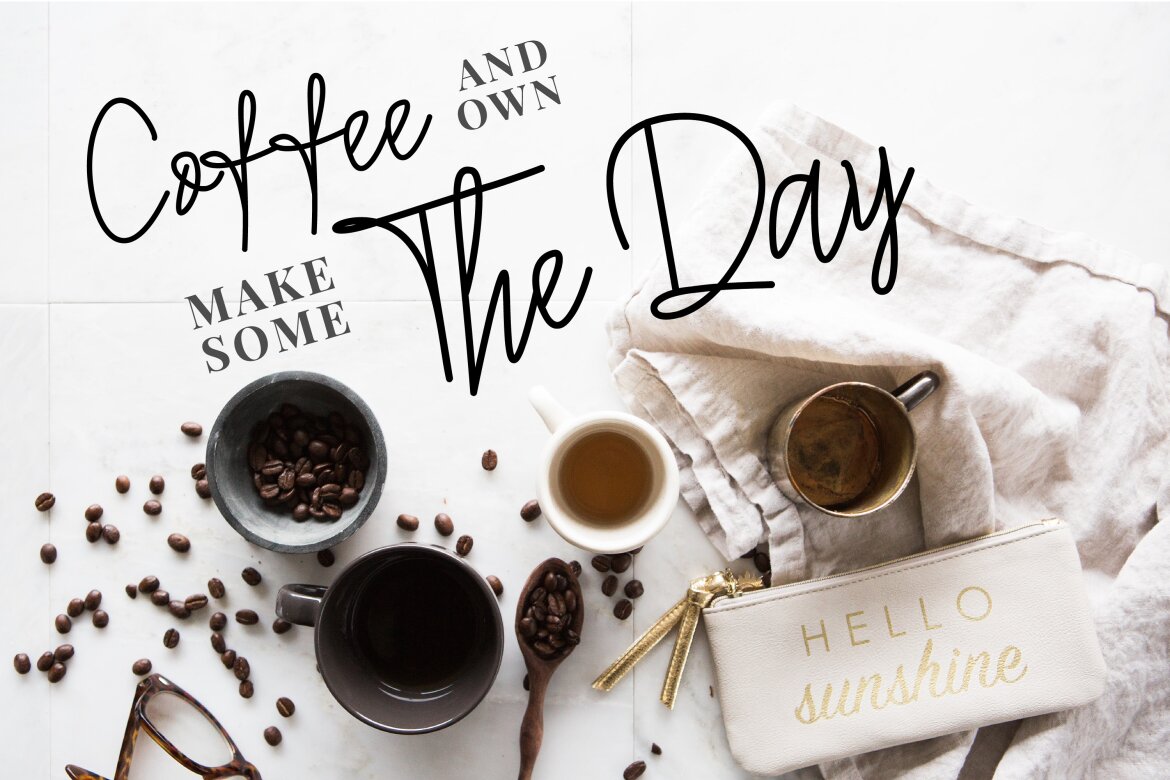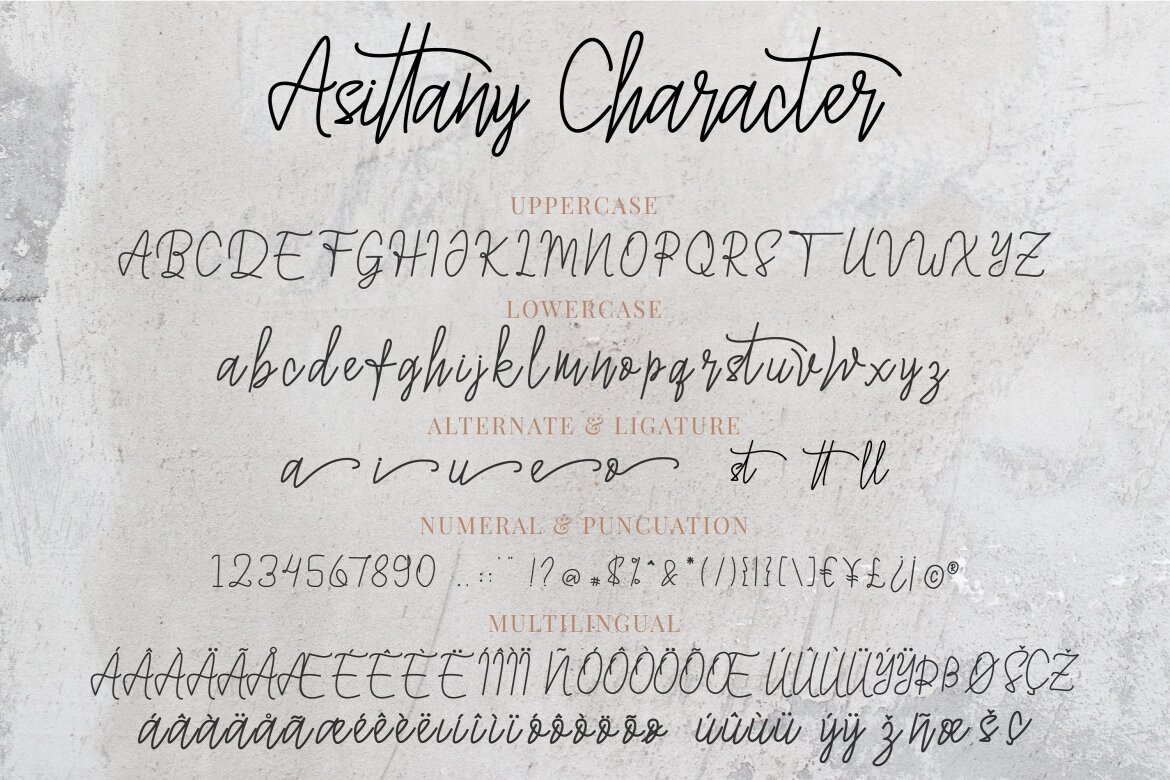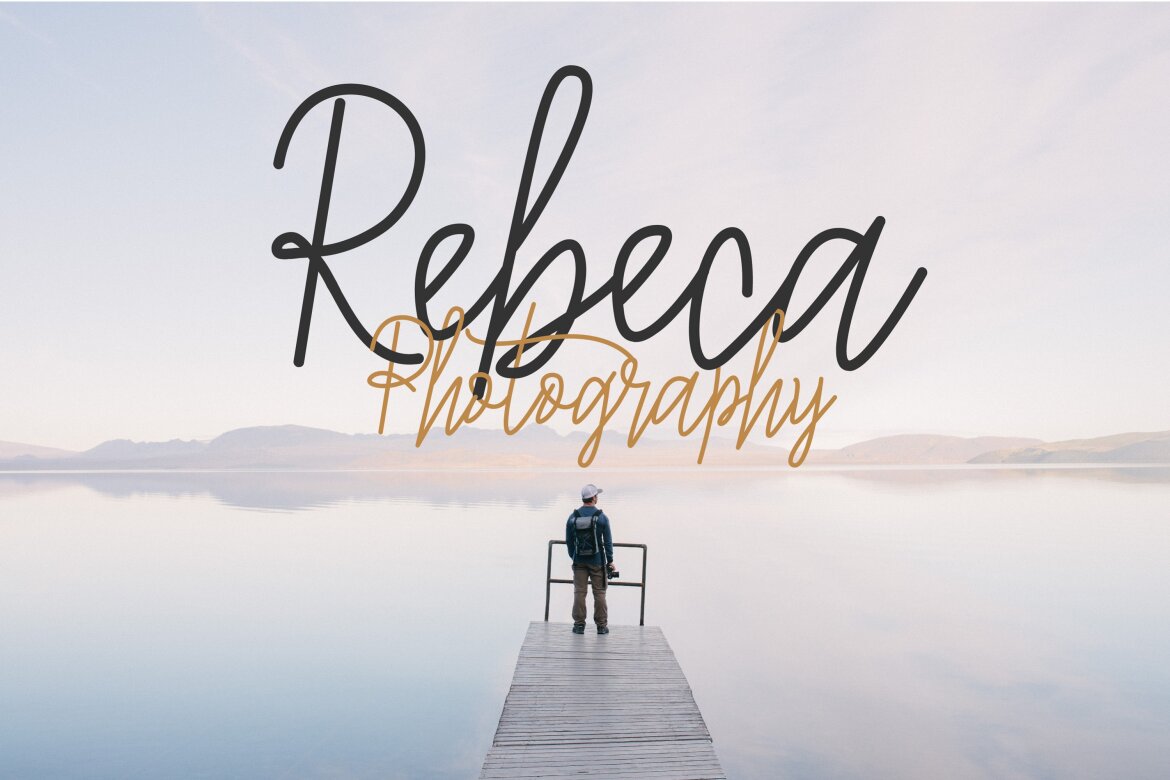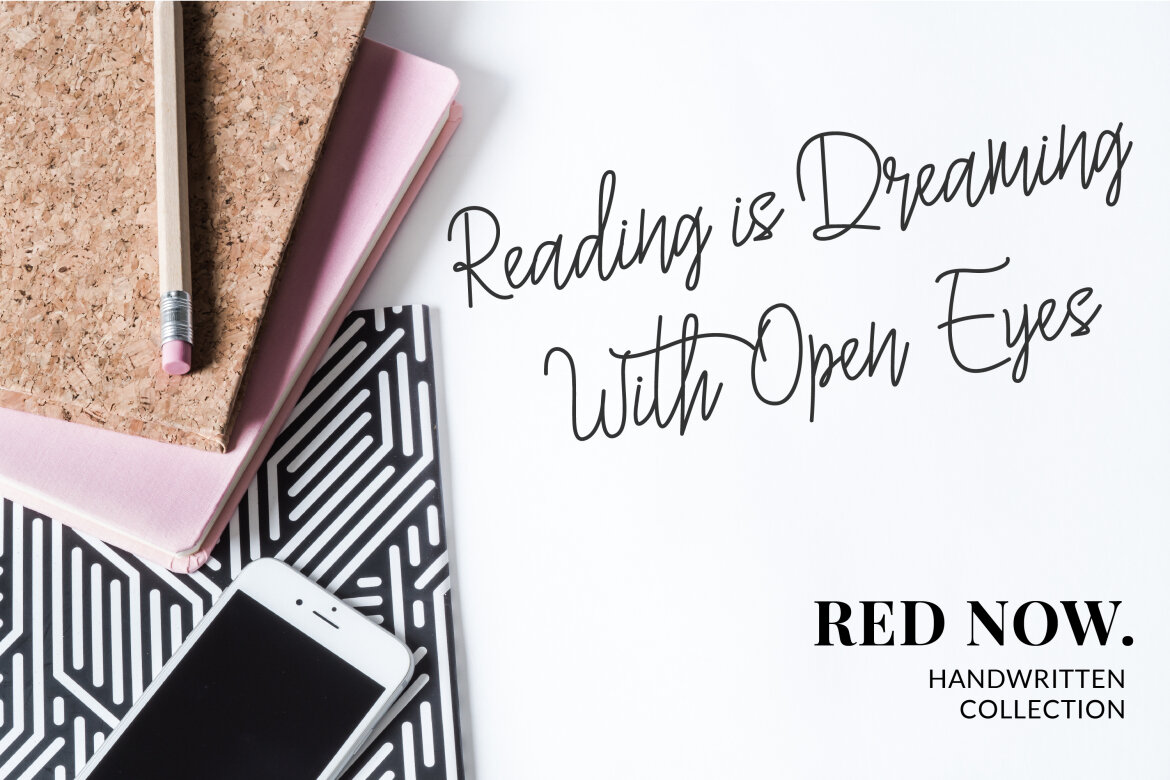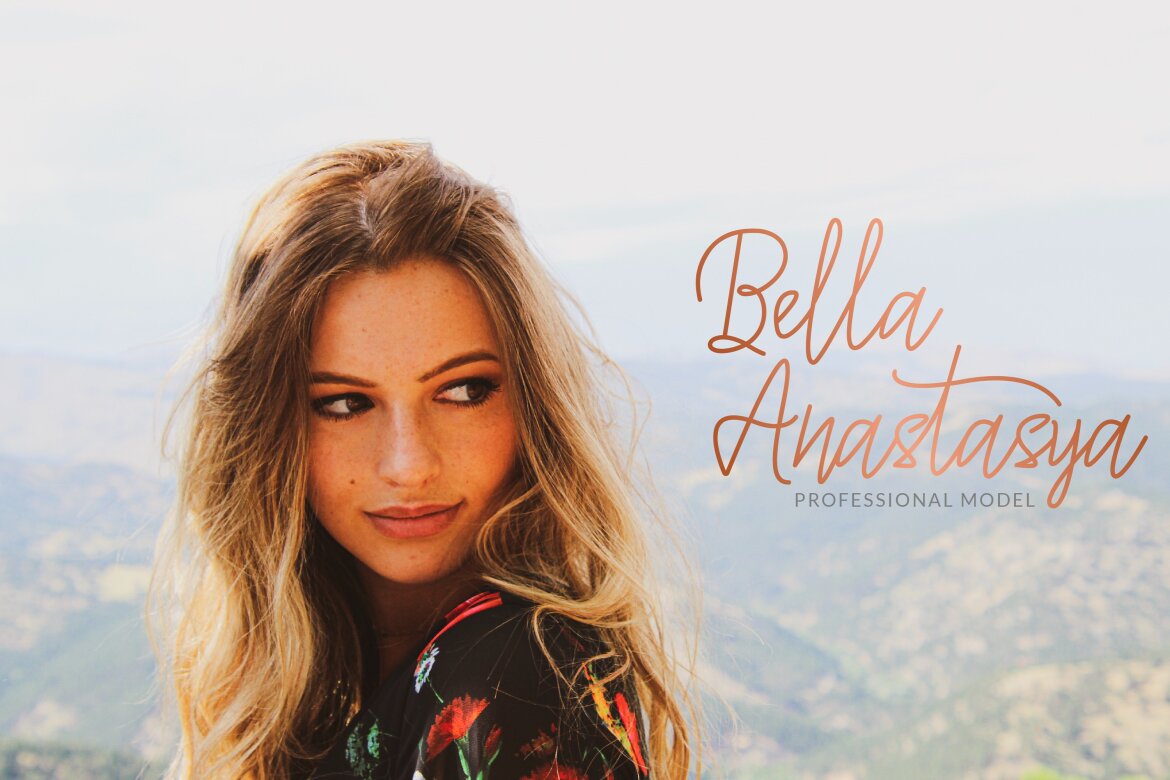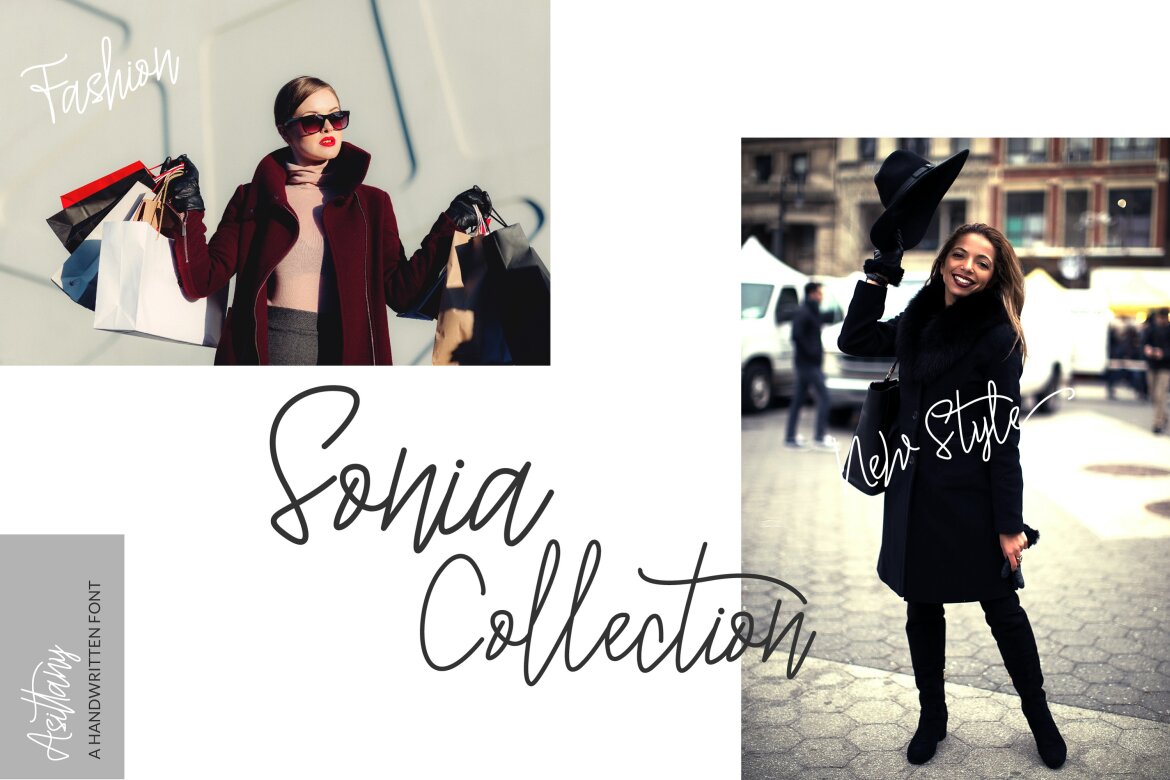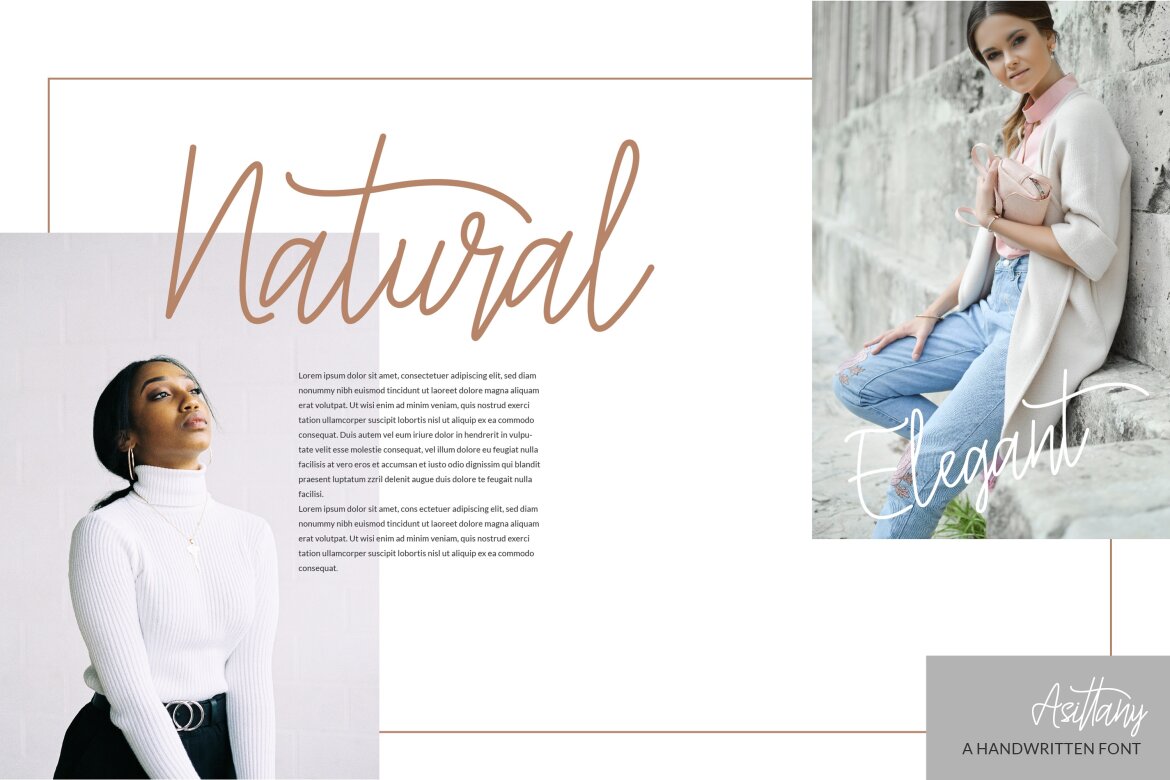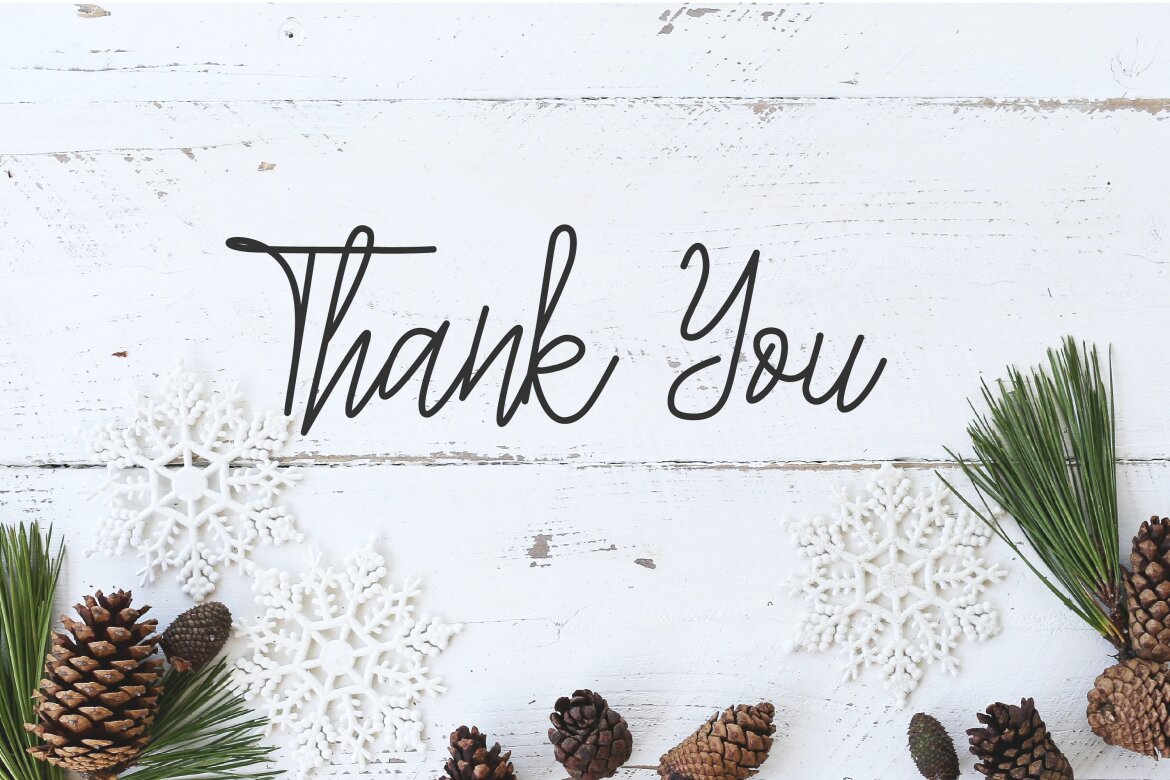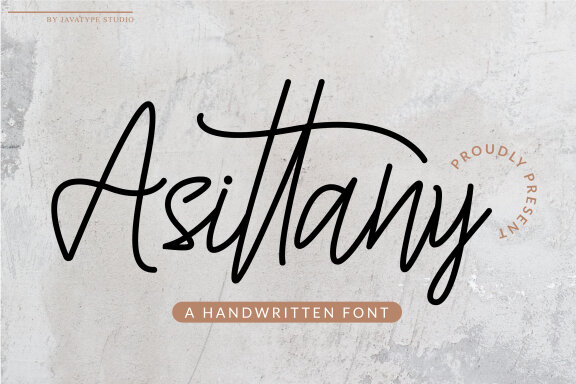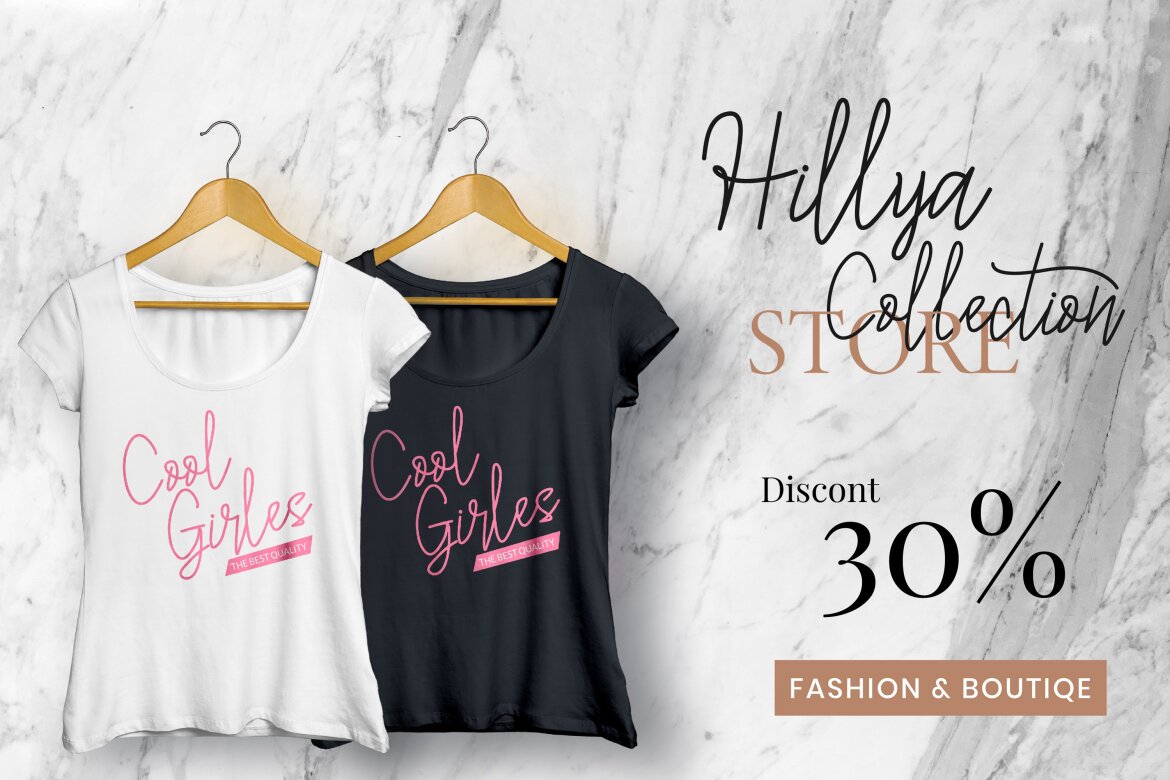
Asittany FREE Handwritten Font
Asittany is a flowing handwritten font, described by an elegant touch, perfect for your favorite projects. Fall in love with its incredibly distinct and timeless style and use it to create spectacular designs!
• alternate & ligature
• lowercase & uppercase
• multillingual support
• numeral & puncuation